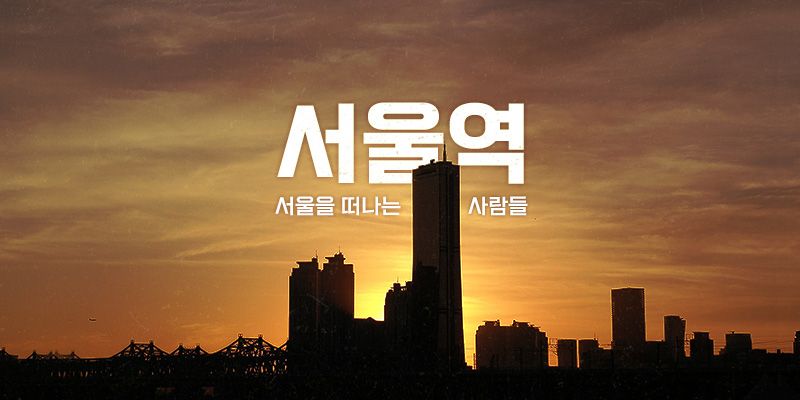
Rix Seoul Station Font Free Download is a modern and versatile sans-serif typeface inspired by the clean, structured lines of urban architecture and signage. With its geometric design and sharp edges, this font exudes professionalism while retaining a contemporary, minimalistic feel, making it perfect for both modern branding and creative projects.
Rix Seoul Station Font Free Download is ideal for high-contrast designs such as headlines, logos, posters, and branding materials. Its precise letterforms and strong visual presence make it suitable for everything from tech startups to modern lifestyle brands, offering a stylish and effective solution for digital and print mediums.
Whether you are working on a corporate identity, website design, or creative project that calls for clean, structured typography, Rix Seoul Station brings sophistication and clarity to your designs.